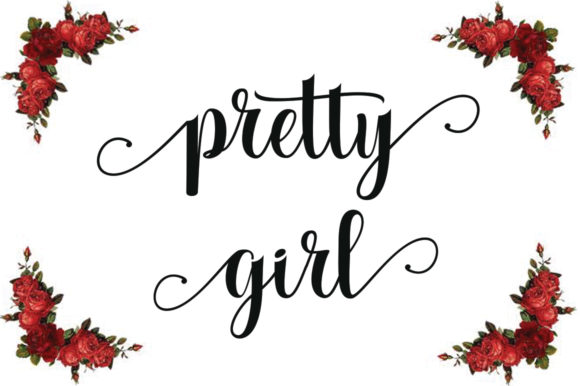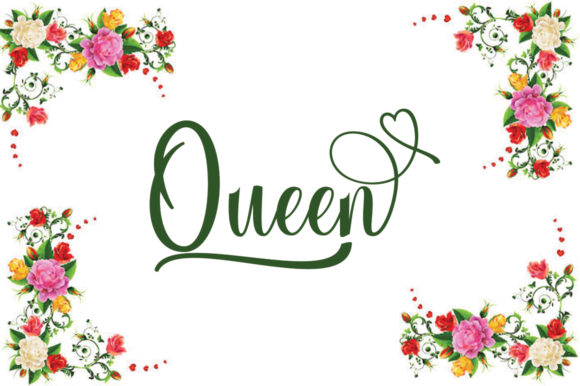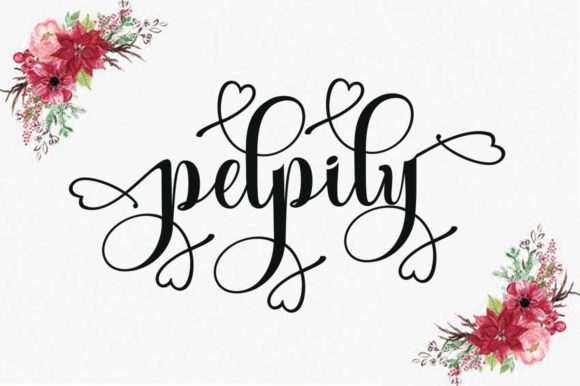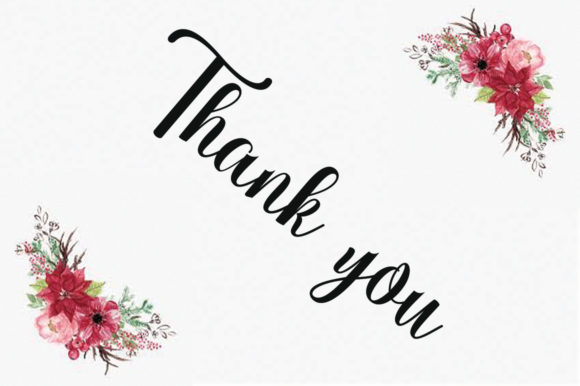
Introducing Anjania Font: Elevate Your Designs with a Touch of Modern Elegance
Are you on the hunt for a font that can add a dash of sophistication and personality to your designs? Look no further than Anjania Font, a stunning modern handwritten font that’s ready to take your creative projects to the next level. With its beautiful, flowing script and versatility, Anjania is the perfect choice for designers and crafters looking to make a statement.
What is Anjania Font?
Anjania Font is a modern handwritten font designed to bring a touch of elegance and whimsy to your designs. Its unique, cursive script is perfect for creating eye-catching logos, stunning wedding invitations, and captivating book covers. Whether you’re a professional designer or a crafty DIY enthusiast, Anjania Font is sure to inspire your creativity and help you bring your vision to life.
What Can I Use Anjania Font For?
The possibilities are endless with Anjania Font! This versatile font can be used in a wide range of applications, including:
- Logos: Create a memorable brand identity with a custom logo that showcases your unique style.
- Wedding Invitations: Make your special day even more unforgettable with beautiful, handcrafted wedding invitations that feature Anjania Font.
- Book Covers: Add a touch of sophistication to your book covers and make them stand out on the shelves.
- Social Media Graphics: Elevate your social media presence with stunning graphics that feature Anjania Font.
- Stationery: Create custom stationery, such as letterheads, business cards, and thank-you cards, that reflect your personal style.
Why Choose Anjania Font?
So, what sets Anjania Font apart from other fonts on the market? Here are just a few reasons why designers and crafters love Anjania:
- Unique and Modern: Anjania Font features a fresh, modern design that’s sure to make your projects stand out.
- Highly Versatile: Whether you’re creating a logo, wedding invitation, or book cover, Anjania Font is the perfect choice.
- Elegant and Whimsical: Anjania Font strikes the perfect balance between elegance and playfulness, making it perfect for a wide range of projects.
- Easy to Read: Despite its elegant script, Anjania Font is highly legible, making it perfect for body text and headlines.
Tips for Using Anjania Font
To get the most out of Anjania Font, here are a few tips to keep in mind:
- Experiment with Font Sizes: Anjania Font looks great in a variety of font sizes, so don’t be afraid to experiment to find the perfect size for your project.
- Pair with Other Fonts: Anjania Font pairs beautifully with other fonts, so try combining it with a bold sans-serif font for added contrast.
- Use it for Headlines and Titles: Anjania Font is perfect for headlines and titles, where its elegant script can really shine.
In conclusion, Anjania Font is a beautiful modern handwritten font that’s perfect for designers and crafters looking to add a touch of elegance and whimsy to their projects. With its versatility, unique design, and high legibility, Anjania Font is sure to become a staple in your font collection. So why wait? Download Anjania Font today and start creating stunning designs that showcase your unique style!